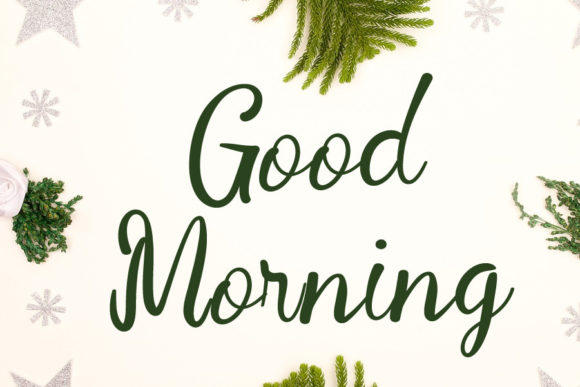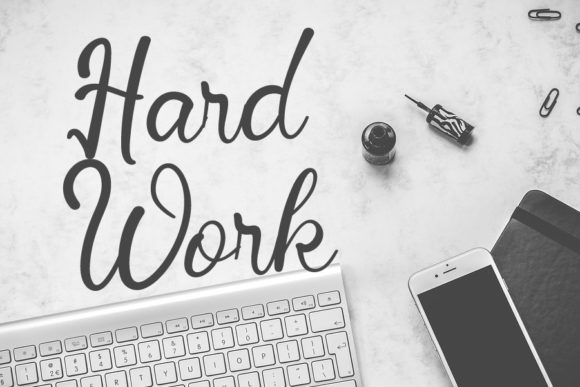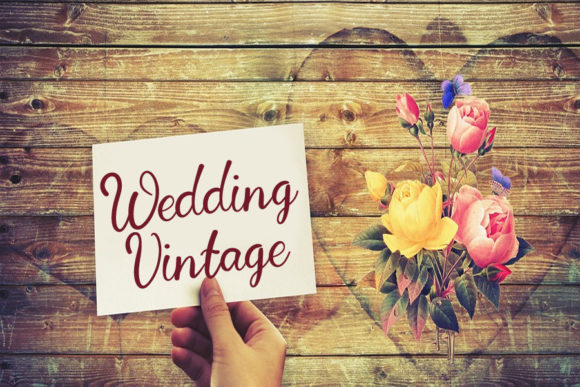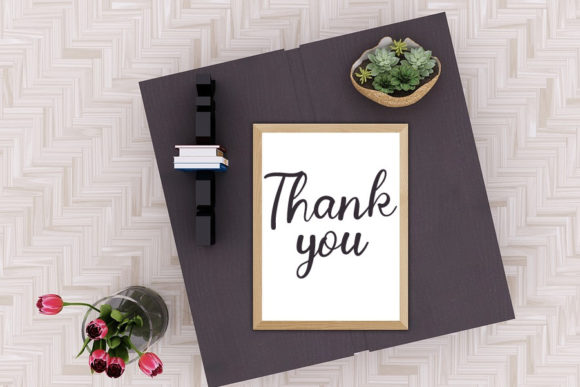
Unlock the Power of Elegant Typography
Have you ever been inspired by a beautiful handwritten note or a beautifully crafted wedding invitation? Those moments of creative spark can be the starting point for some truly remarkable designs. As designers, we know that the right font can elevate our work from ordinary to extraordinary.
That’s where Brilliantly Font comes in – a stunning script font that adds a touch of elegance and sophistication to any project. Whether you’re creating a logo, branding materials, or special event invitations, Brilliantly Font is the perfect choice to give your work a beautiful, handwritten feel.
Brilliantly Font Key Features
- Font Family: Brilliantly Font is a premium font family with 12 styles, including Light, Regular, Medium, Bold, Black, and more.
- Character Count: Contains over 800 characters, including Latin, Cyrillic, and Greek alphabets, as well as punctuation and symbols.
- Unique Characteristics: Features a unique blend of modern and vintage elements, with a focus on clean lines, elegant curves, and subtle texture.
Brilliantly Font Review
As a designer, I was excited to dive into Brilliantly Font and see what it had to offer. Overall, I’d say it’s a decent font family, but it’s got some areas where it shines and others where it falls short.
- Consistency: The font family is well-designed and has a consistent look and feel across different weights and styles.
- Variety: Brilliantly Font has a good range of weights, from light to bold, making it suitable for a variety of design projects.
- Legibility: The font is clear and easy to read, even at smaller font sizes.
- Lack of Italic Styles: While the font has a good range of weights, it’s missing italic styles, which can be a limitation for designers who need to create italic text.
- Limited Character Set: The font’s character set is not as extensive as some other font families, which can be a problem for designers working on projects that require a wide range of special characters.
While Brilliantly Font has some great strengths, its limitations hold it back from being a top-tier font family. It’s still a solid choice for designers who need a clean, legible font for their projects, but it’s not the best option for those who need more advanced features or a wider range of styles.
Brilliantly Font is perfect for creating eye-catching headlines, titles, and headings. Use it to add a touch of elegance and sophistication to your designs.